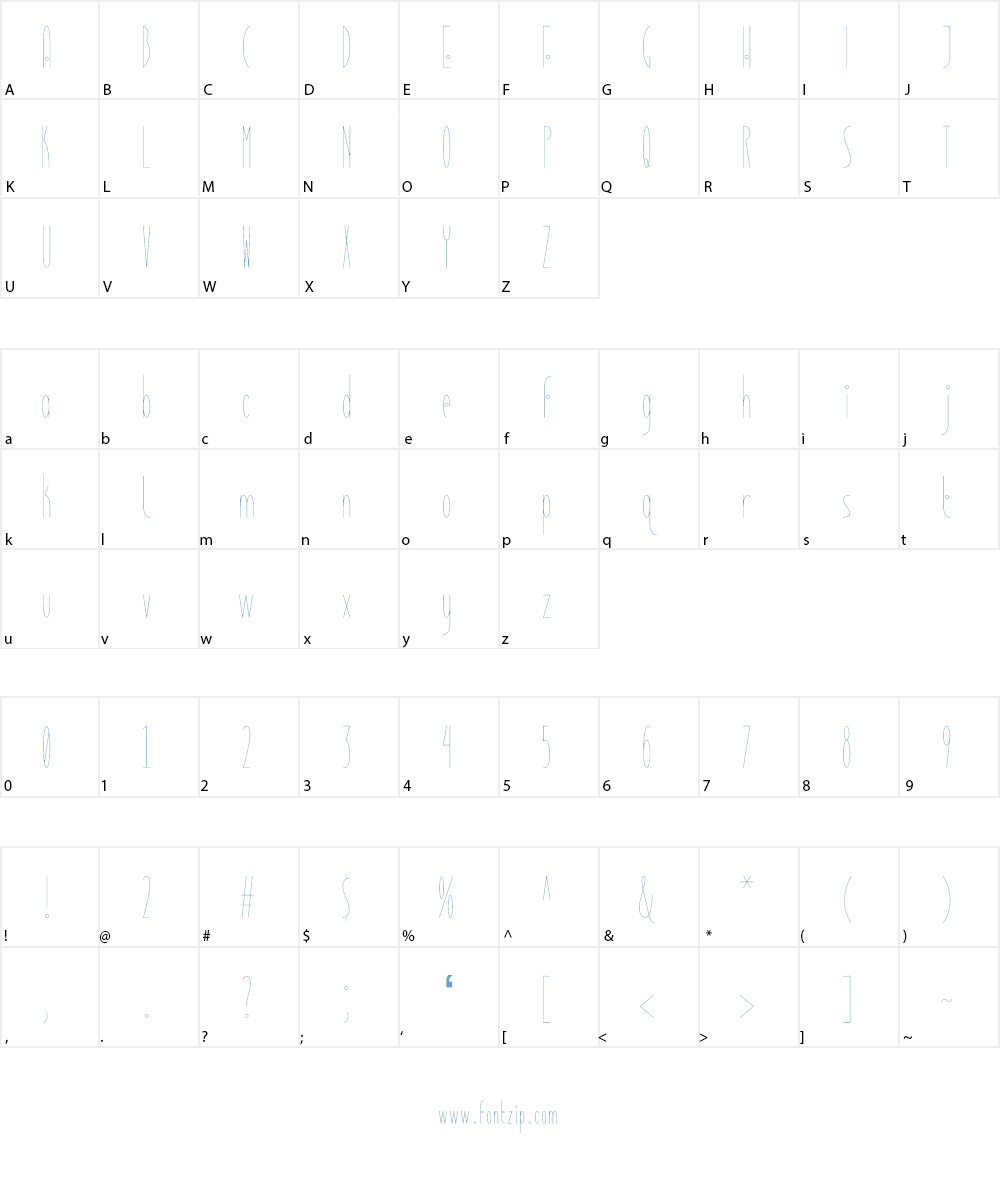
Inspired by a desire to create without the influence of what I've been taught about how I should be perceived. Contrary to all acceptable popular design quota, this font is a step in the direction of, "What do YOU want to create? Okay, now do that."